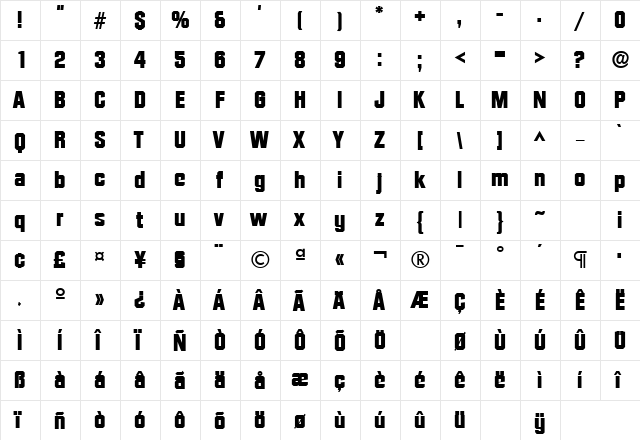
DiamanteLH Bold
Design Context for DiamanteLH Typeface
DiamanteLH offers clean, dependable letterforms without strong stylistic allegiance, making it a practical choice for designers who need flexibility. The heavy weight commands attention and anchors typographic hierarchies.